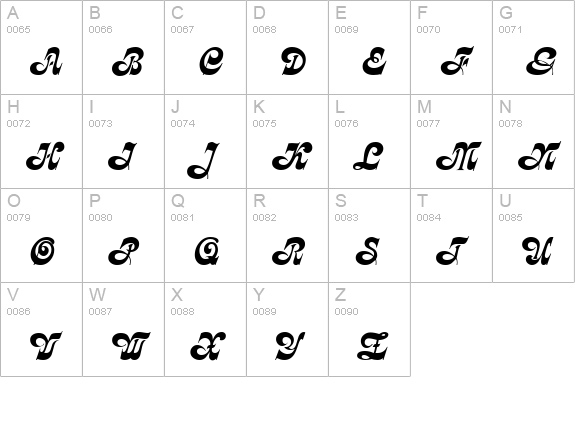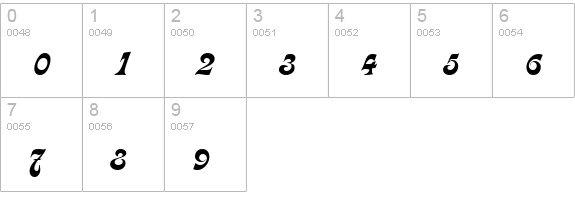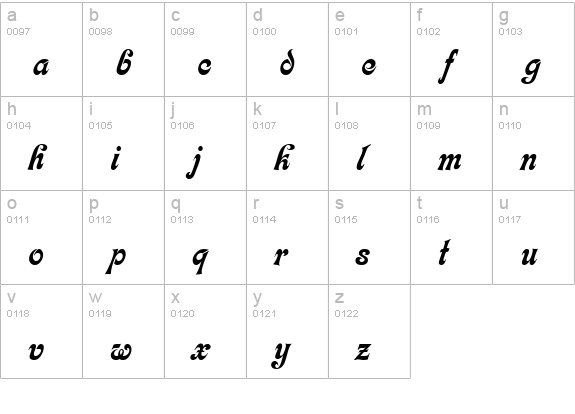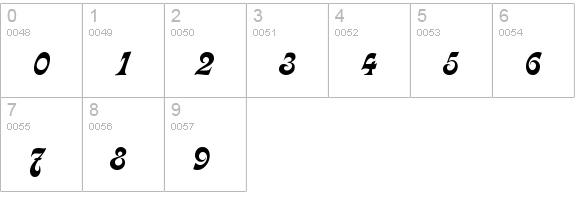
Fleetwood Regular Font Details
Fleetwood Regular is the standard, neutral variant in the Fleetwood typeface family \xE2\x80\x94 well suited to general body text, paragraphs, and standard typographic work.
Fleetwood Regular font is a versatile and modern typeface designed for various design projects. With its clean lines and elegant curves, Fleetwood Regular exudes a sense of sophistication and professionalism. This font is perfect for creating eye-catching headlines, stylish logos, and sleek branding materials. What sets Fleetwood Regular apart is that it is available for free download at FontsMarket.com. Whether you are a graphic designer, a business owner, or a creative enthusiast, you can easily access this premium font without any cost. Enhance your design projects with Fleetwood Regular and make a lasting impression with its timeless appeal. Download it today and elevate your designs to the next level!